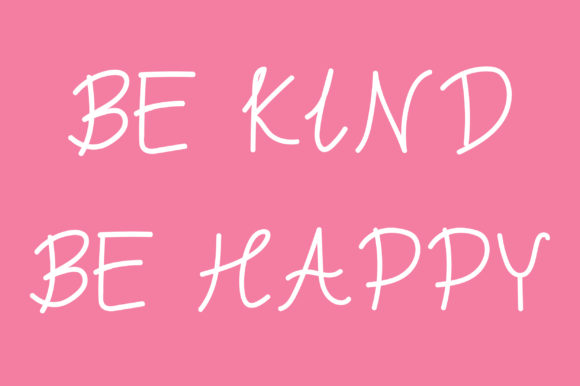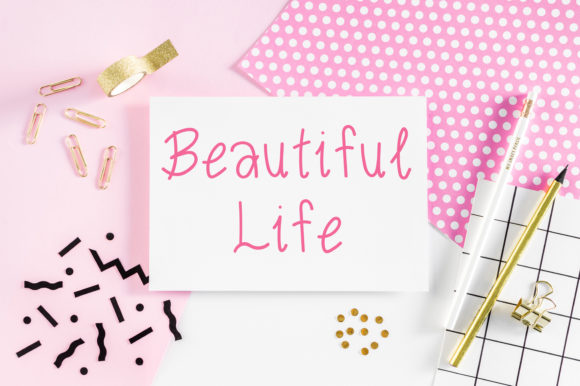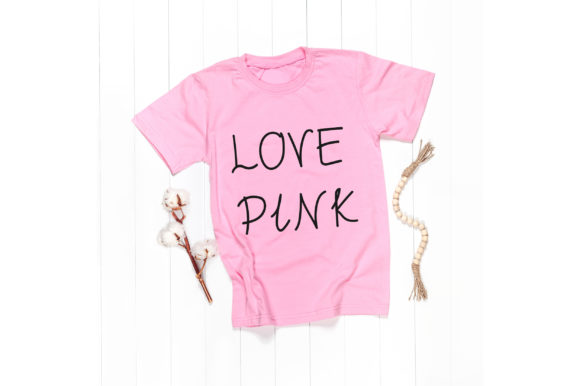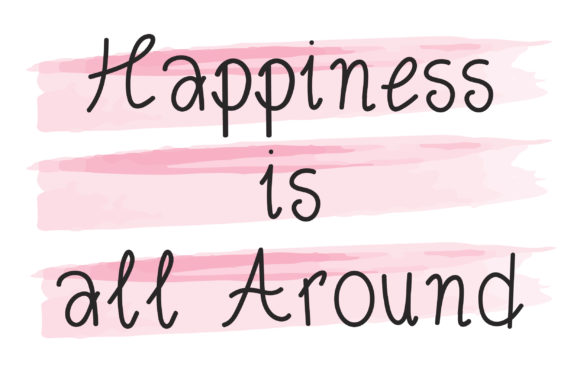
Pink Sakura Font
About Pink Sakura Font
Pink Sakura is a cute and friendly handwritten font. Fall in love with its incredibly versatile style and use it to create gorgeous wedding invitations, beautiful stationary art, eye-catching social media posts, and much more!